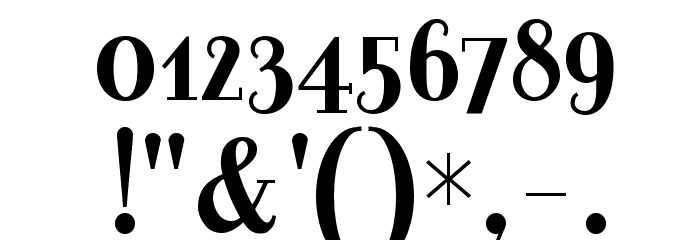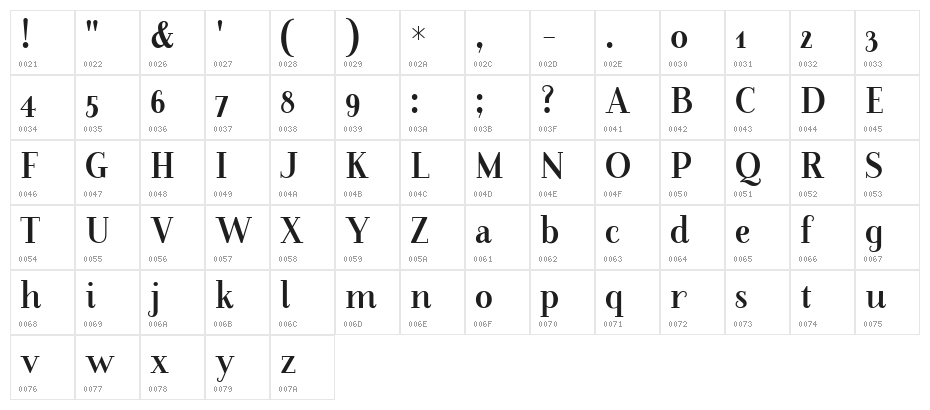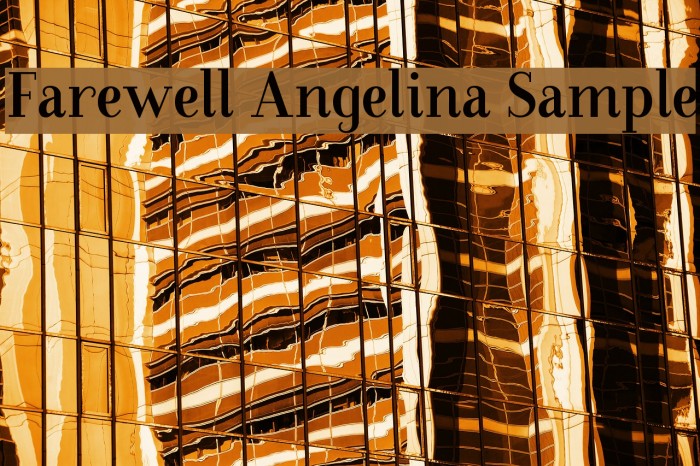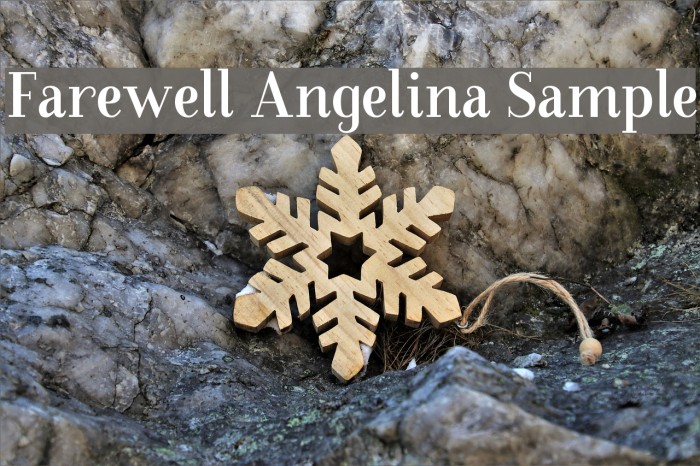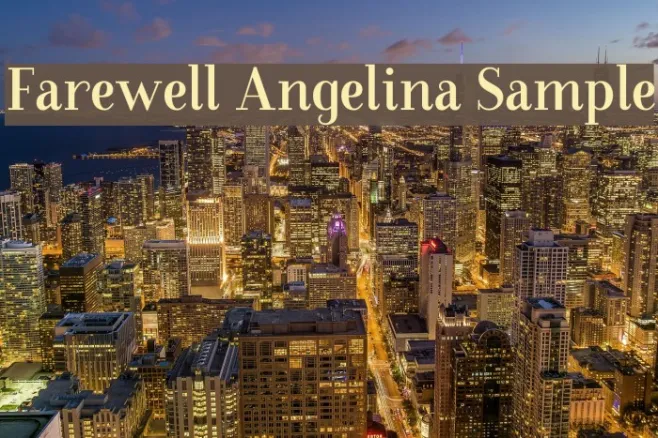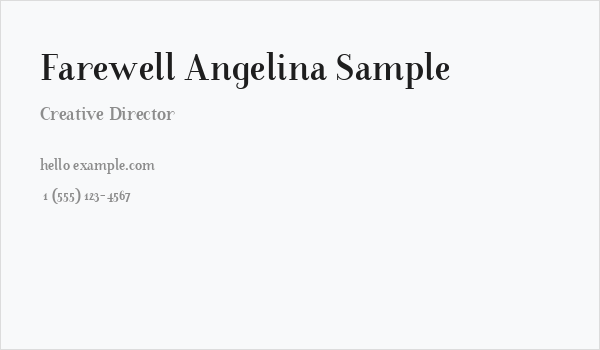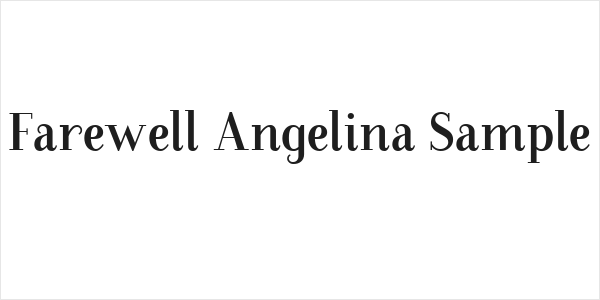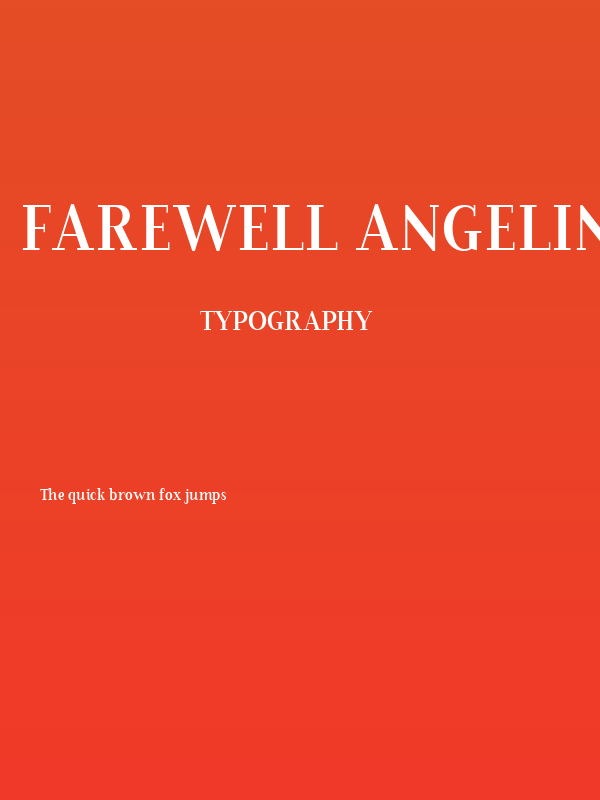
Farewell Angelina Sample Font
Farewell Angelina Sample Description
This font features a classic serif style with elegant and refined letterforms. The uppercase characters are bold and commanding, while the lowercase letters maintain a graceful flow. The numerals are distinct and clear, ensuring readability. Special characters are designed with a touch of sophistication, making them suitable for formal contexts. The overall appearance is balanced, with moderate contrast in stroke thickness, giving it a timeless appeal. This font is versatile, suitable for both digital and print media, and can enhance the visual impact of any project.
| Proposed Projects | Ideal for book covers, editorial design, branding, and formal invitations. |